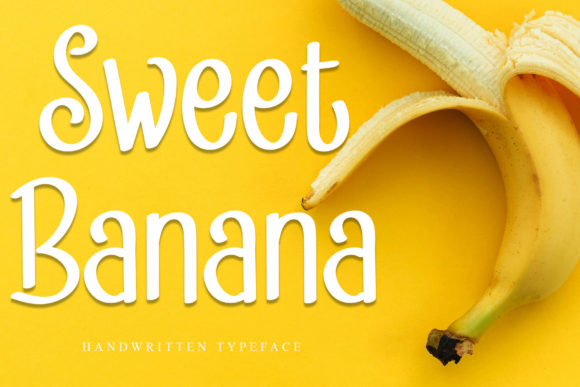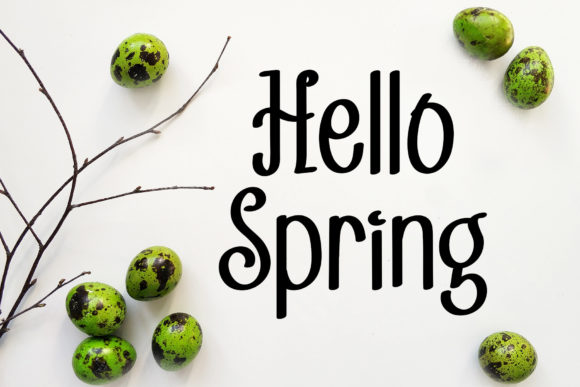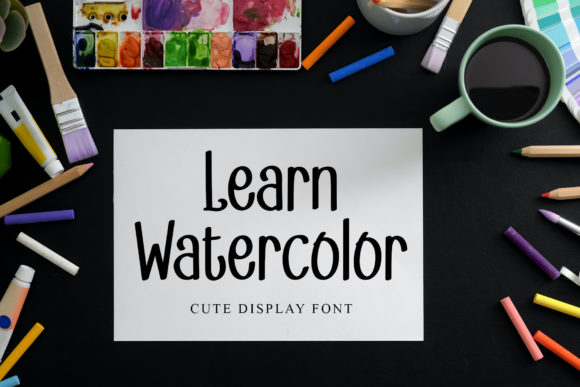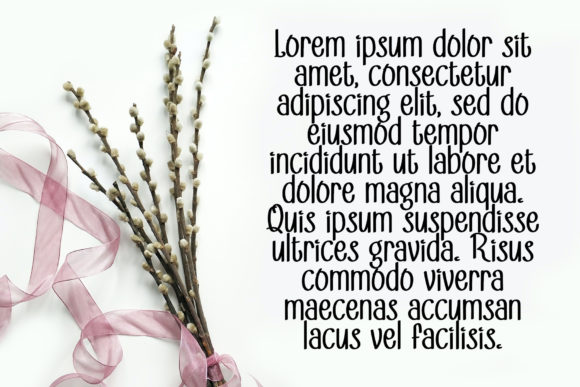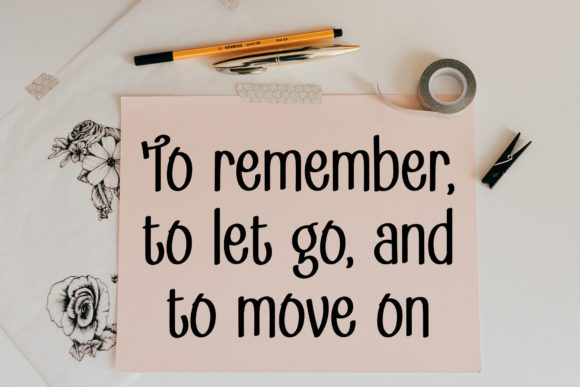
Sweet Banana Font
About Sweet Banana Font
Sweet Banana is a simple and friendly handwritten font. Its natural and unique style makes it incredibly fitting to a large pool of designs. The only limit is your imagination!